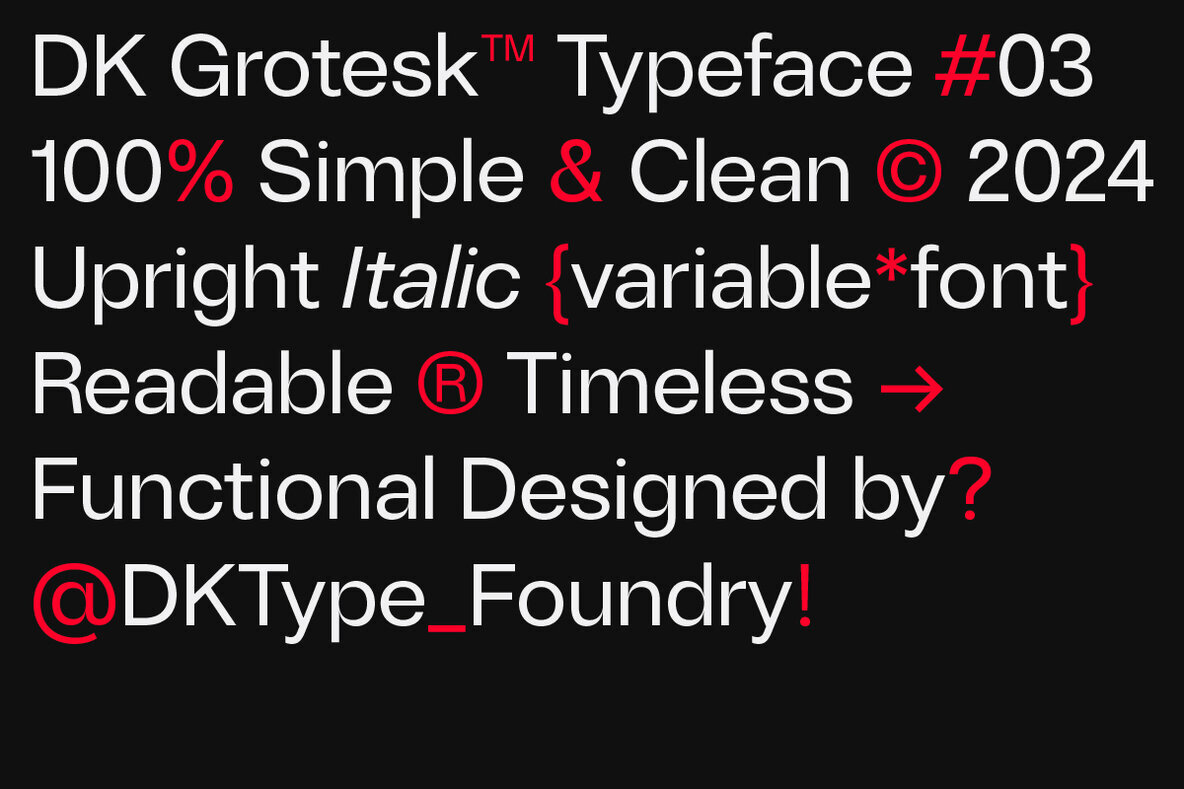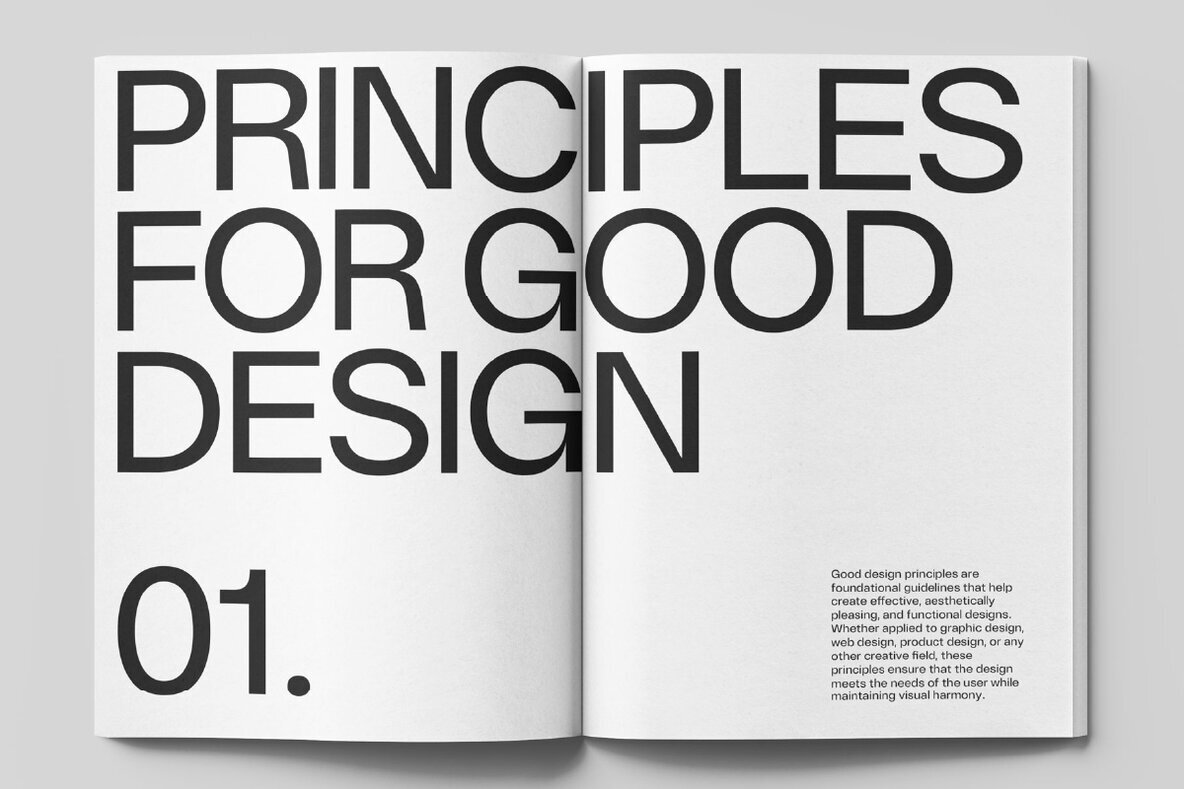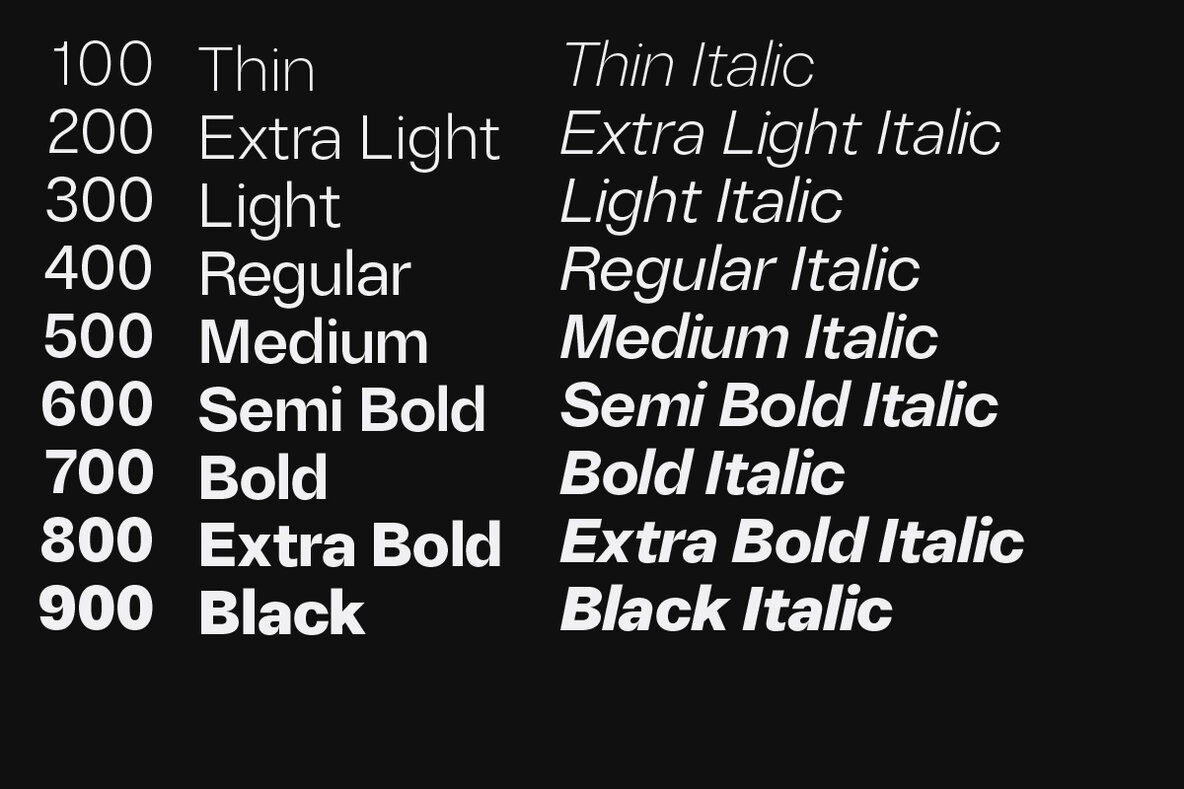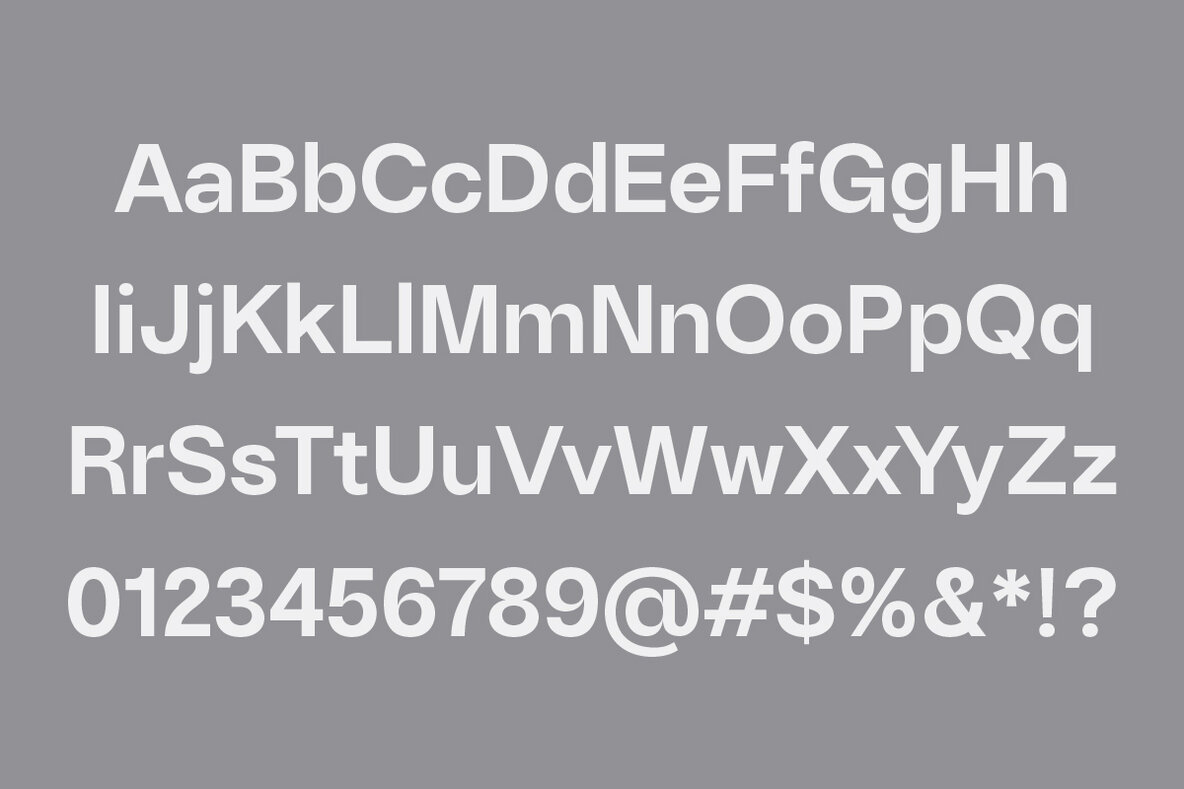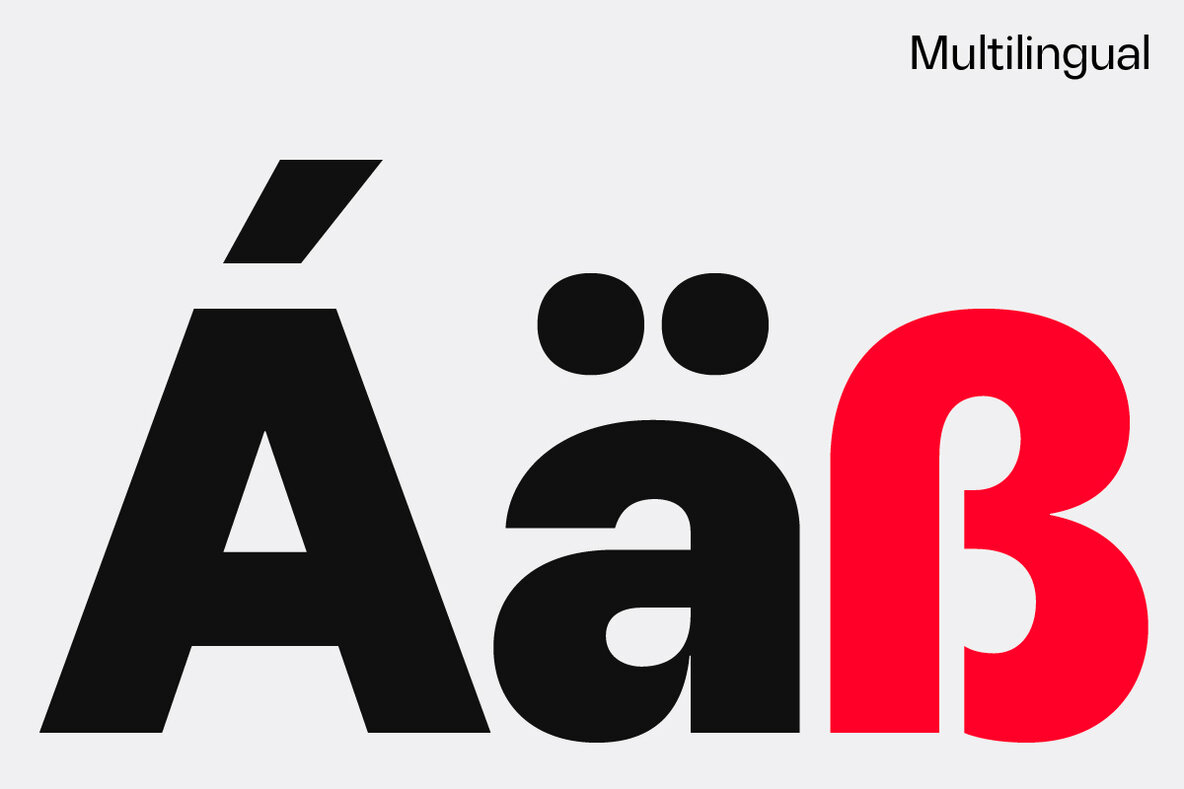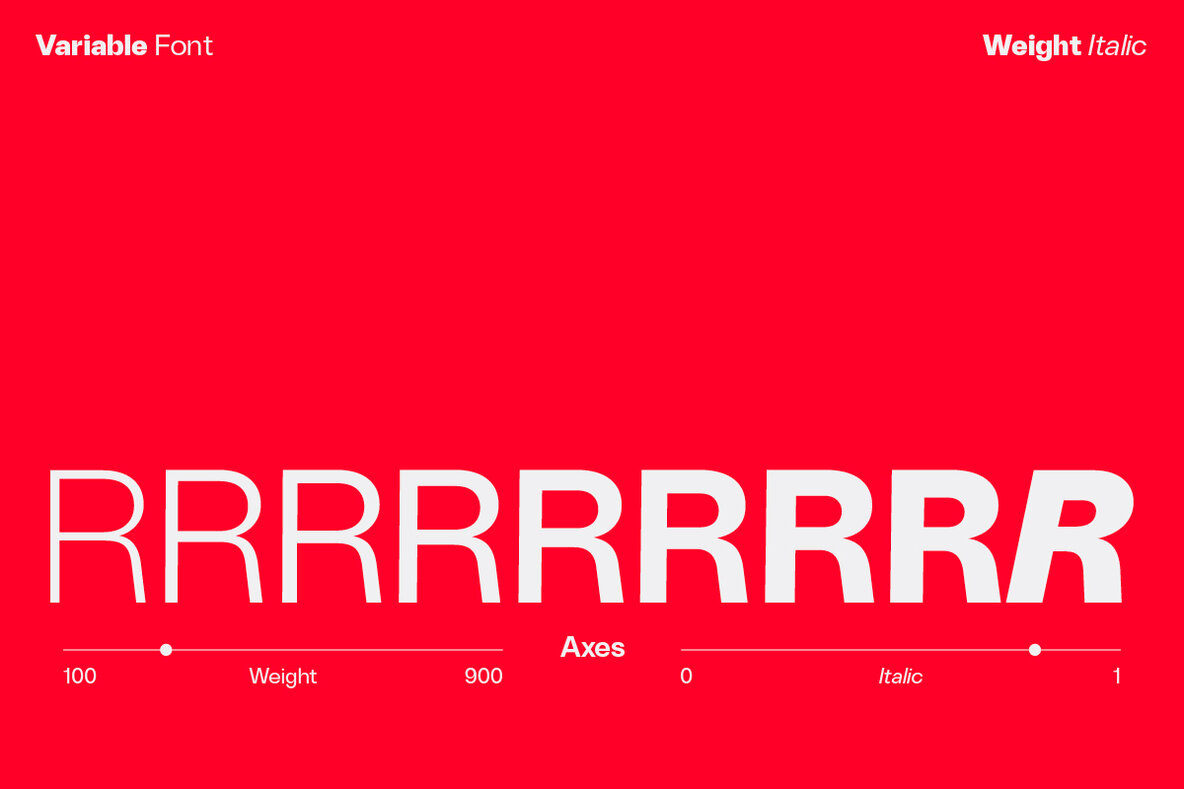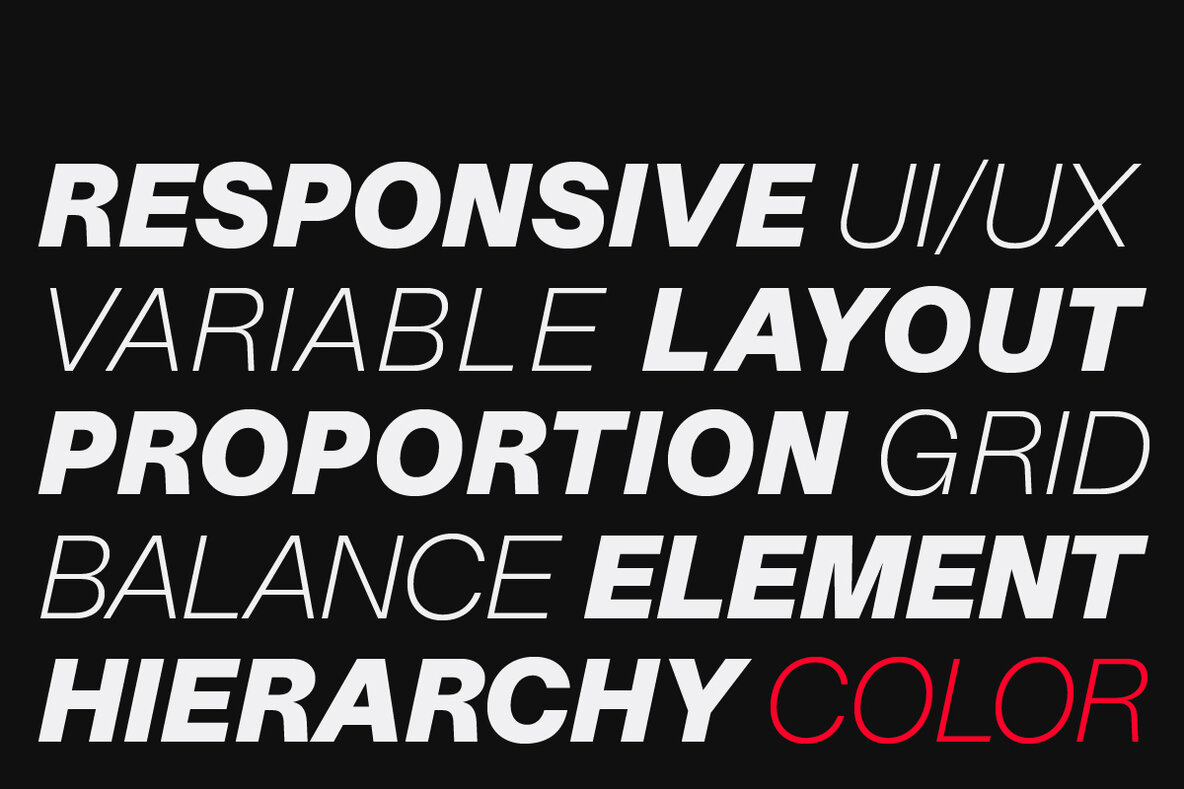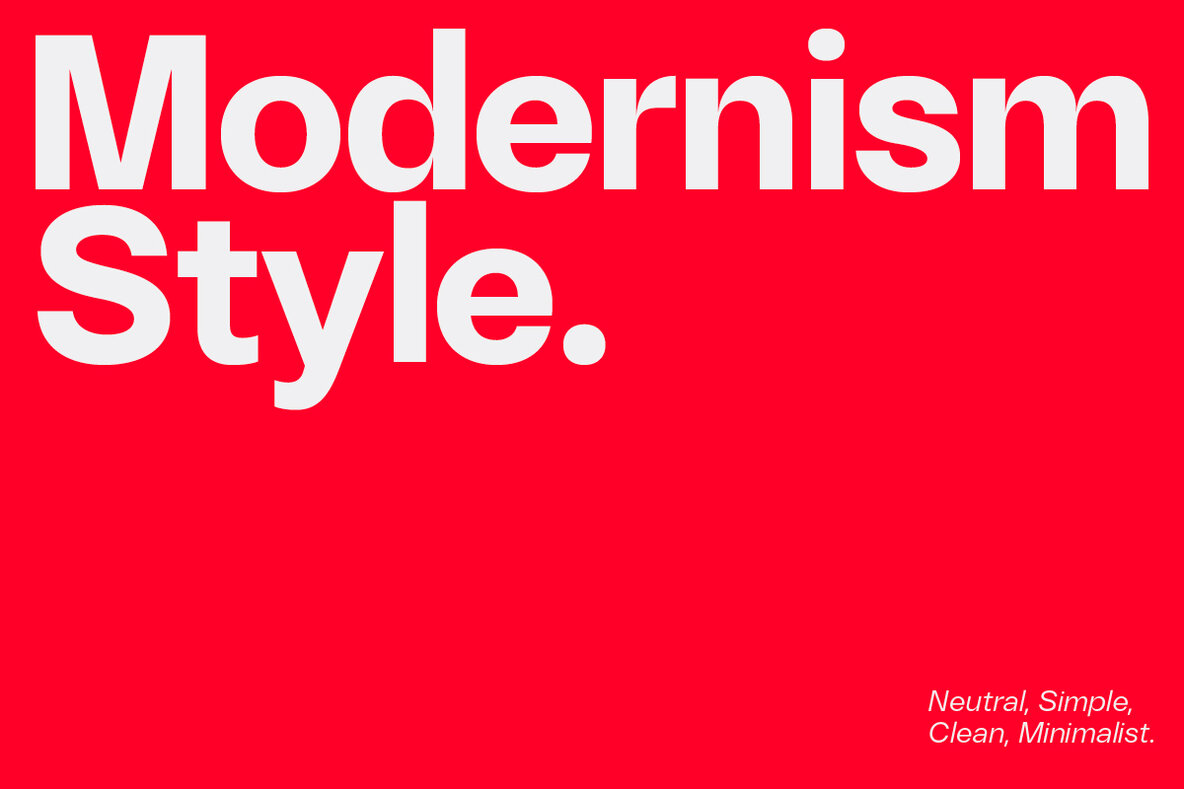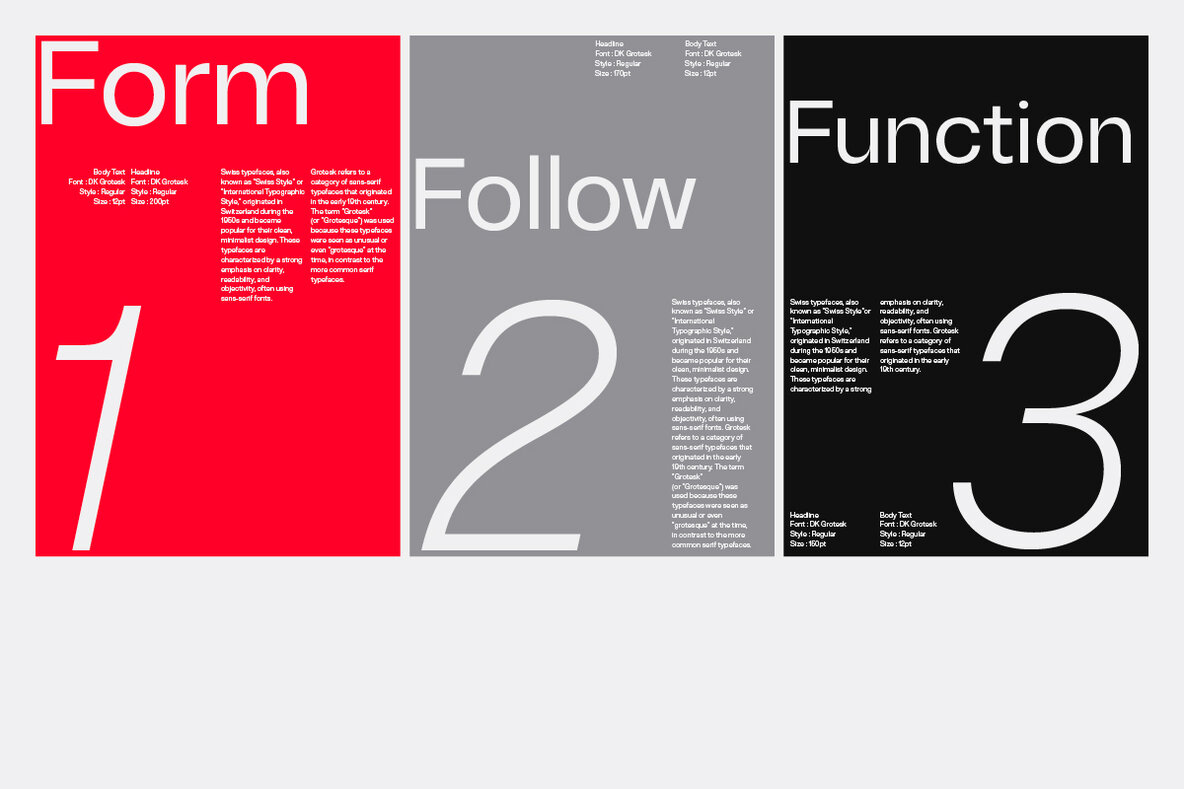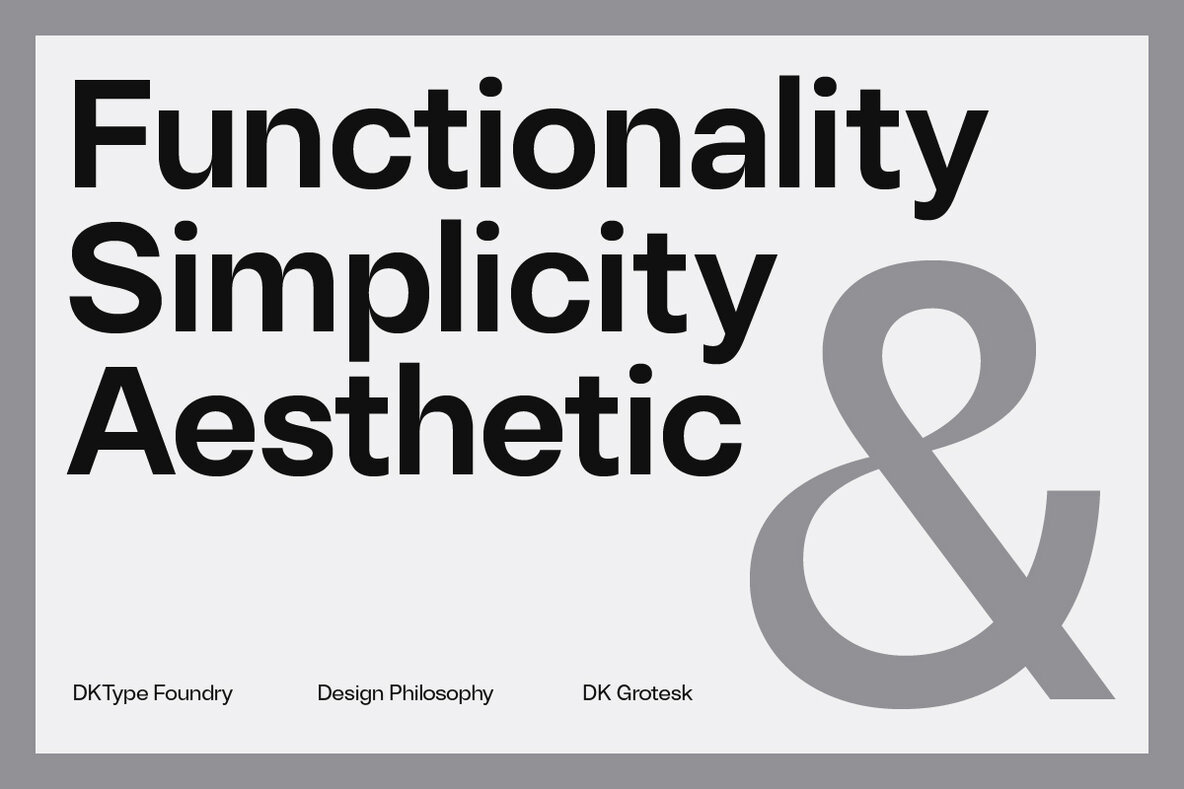
DK Grotesk Font
DK Grotesk is rooted in the enduring qualities of classic Grotesk typefaces, offering a sleek and straightforward design that emphasizes outstanding readability and versatile functionality. Each character is carefully designed to balance form with function, making it suitable for a broad spectrum of applications. Ideal for digital platforms, editorial layouts, and branding, DK Grotesk provides a clear and engaging typographic experience. It combines utility with elegance, ensuring that your content remains both legible and visually striking, marked by its subtle sophistication and contemporary allure.DK Grotesk: Timeless Simplicity in Modern Typography